Get ready to elevate your seasonal designs with our ultimate guide to summer fonts! From playful, nostalgic retro to carefree summer font styles, this article will showcase the best summer typefaces that radiate warmth and fun.
Key Takeaways:
- Fonts for summer vibes can take any style as long as they reflect warmth, playfulness, and nostalgia.
- The best summer font helps you express the seasonal narrative visually and emotionally.
Bring the Heat with These Summer Fonts!
There’s something magical about the feeling of summer, from the warmth, the freedom, to the carefree joy. Translating that into visuals starts with capturing the right font tone. These typefaces echo the mood of lazy beach days, tropical escapes, and sunset memories. Let’s check them out!
1. Summer Dash
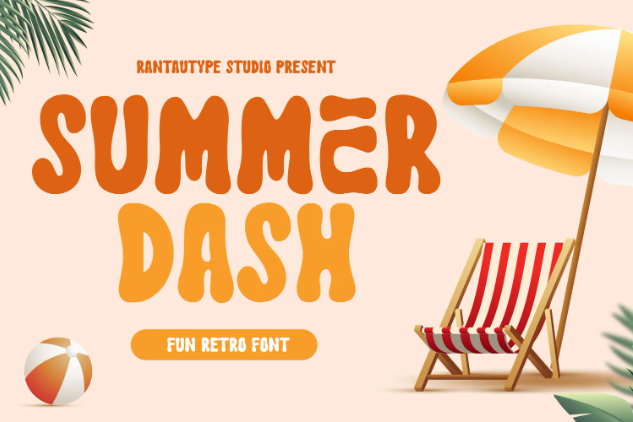
The sun-soaked summer atmosphere is perfect for Summer Dash font, a carefree and playful typeface that also captures the season’s playful vibe.
2. Allerond
Allerond can capture the summer essence with its bold, display marker look to highlight a more liberating feeling in your content.
3. Brelyna
Signature brush typefaces are rare for summer vibe fonts, but Brelyna is an exception that can capture the warm aura, and its letterforms even add exciting movement.
4. Macorta
Macorta is the staple of a bold, vibrant font. With Macorta on your summer design, you can amplify the fresh and playful nature of your theme.
5. Millantey
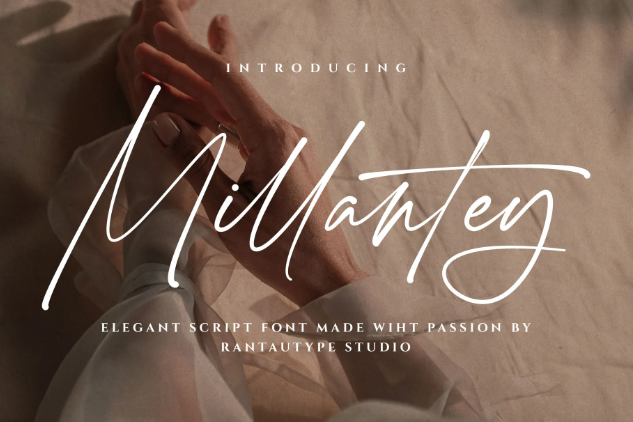
If you want to add a touch of elegance to your summer designs, use Millantey. Millantey’s free-spirited script combines sophistication and a relaxed feel.
6. Hanist
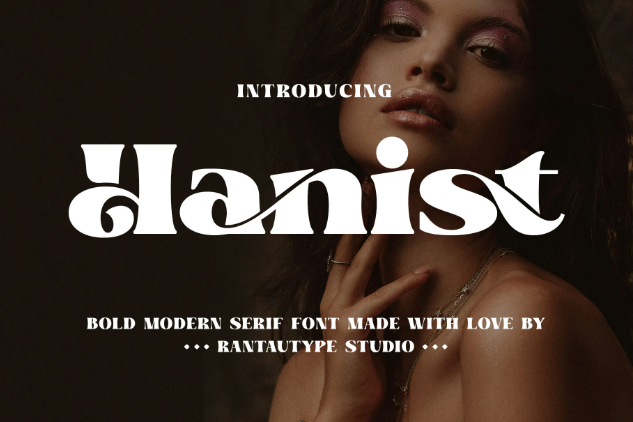
Hanist, the modern and bold serif font, fits itself among our summer fonts by highlighting its wavy, twirly ornaments, and chaotic movement with its cuts.
7. Holiday Delight
What’s better than Holiday Delight for your summer holiday font? Holiday Delight captures the relaxed and breezy vibe with its light letterforms.
8. Gardina
Gardina is an eccentric typeface that associates your summer design with a hint of vintage vibes while its unique letterforms are boldly eye-catching.
9. Brestina
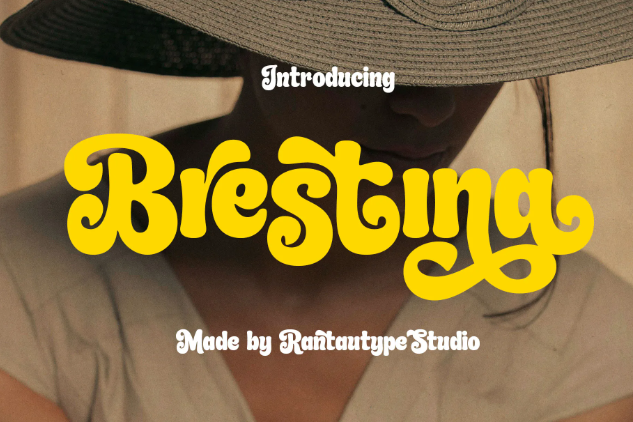
If you want a highly ornamented font with summer vibes, grab Brestina! This font takes the retro summer font aesthetic to another level and goes ham with the twirly flairs.
10. Dastery
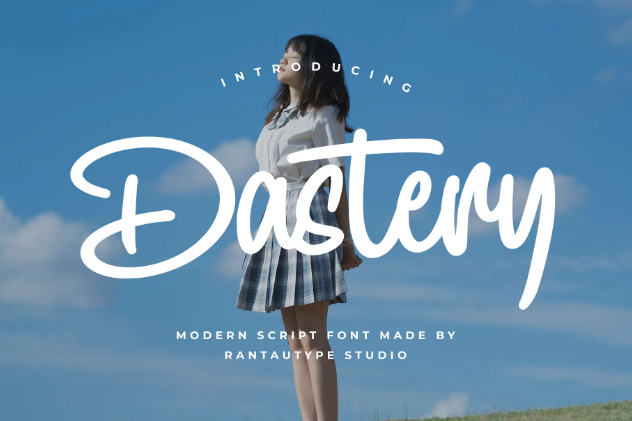
To highlight the young or childish aesthetic in your summer-themed design, Dastery is the font. Dastery’s lighthearted look will instantly cheer up your summer occasions.
11. Baserio
Baserio is especially made for you who yearns for the loud and retro style combo, even mixing uppercase and lowercase letters seamlessly.
12. Emilia Note
Emilia Note is naturally chic and feminine. On top of some summer contexts, you can highlight your personality with Emilia Note.
13. Brinema
Being bold and condensed, Brinema is exceptional in sunset-inspired and radiant designs while accentuating fresh and oceanic visuals.
14. Halidary
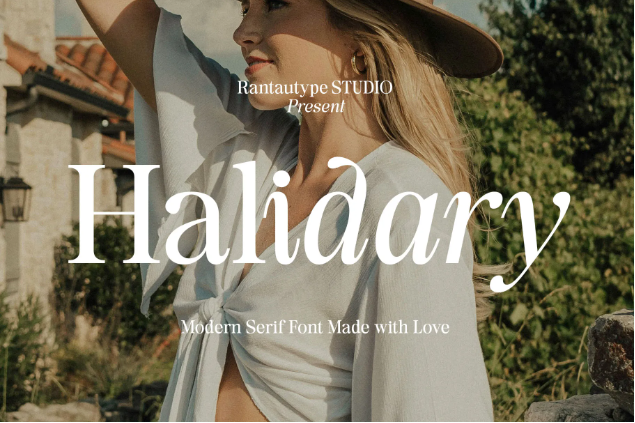
Halidary offers regular and italic styles with a serif look. Although looking formal, Halidary is unexpectedly floral, which fits the summer vibe.
15. Refani
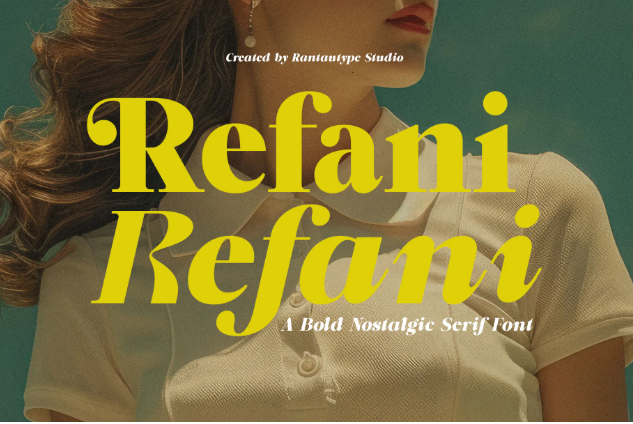
Refani equips the nostalgic serif look with floral aesthetics and fresh letterforms, even adding an authentic, almost-script italic option.
16. Garemy
Among our summer fonts, Garemy is the perfect one to accessorize your design. With a handwritten brush style, Garemy adds a dreamy look to your summer arrangement.
17. Amonyca
With Amonyca as your ammunition, you can enrich your summer design with a lithe, flowy typeface that beautifies your text.
18. Antha
At a glance, Antha is obviously floral. Adding Antha to your summer-themed designs can reduce the hot intensity and bring fresh visuals.
19. Archiga
Archiga’s brush script look is the perfect tool to deviate from the typical summer text and highlight the unique sophistication in your persona.
20. Easy Bond
Easy Bond is the easy solution to add ornate elements, even from your text section. The unique flows and twirls of Easy Bond’s thick letters can instantly beautify your designs.
21. Fresh Sunday
Fresh Sunday displays thick brush strokes with all-caps letters. Each letter from Fresh Sunday contributes to bringing fresh and airy vibes to your sun-soaked design.
22. Funy Beach
For an extravagant and eye-catching look, Funy Beach can achieve that. Funy Beach uses a bold, balloon-like look based on the iconic retro style.
23. Gold Badge
With a luxurious touch and floral strokes, Gold Badge can elevate your summer design to a more modern aesthetic.
24. Roger Display
Wrap Up Your Designs with the Perfect Summer Fonts!
Whether you’re chasing the feeling of a golden-hour road trip or the serenity of an ocean breeze, these typefaces can better express your words. Your font selection can be a visual element that emotionally carries the summer spirit. By choosing fonts that reflect the easygoing mood of summer, you can simultaneously decorate and deliver your message. Complete your summer design with our expressive fonts and match every mood! Only at Rantautype Studio can you elevate your visual language game.